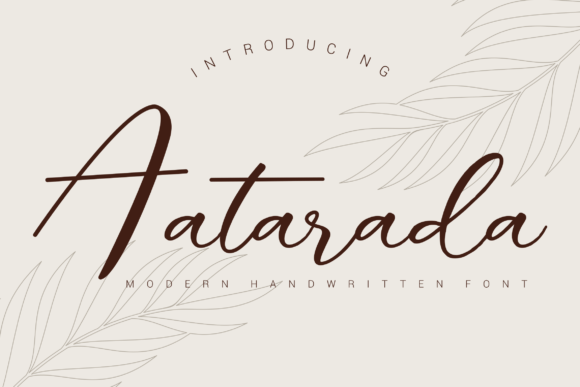
Aatarada Font: Elevate Your Designs with a Flowing and Authentic Script Font
In the world of typography, a font can make or break a design. For designers and crafters looking for a unique and authentic script font to elevate their projects, Aatarada Font is an excellent choice. Aatarada is a beautifully crafted font that exudes elegance and sophistication, making it perfect for a wide range of applications, from branding and logos to t-shirt printing and esports.
What is Aatarada Font?
Aatarada Font is a flowing and authentic script font designed to add a touch of personality to any design project. Its unique and elegant lettering makes it stand out from other fonts, and its versatility ensures that it can be used in various contexts. Whether you’re working on a logo, t-shirt design, or esports project, Aatarada Font is sure to make a lasting impression.
Key Features of Aatarada Font
- Flowing and Authentic Design: Aatarada Font boasts a beautiful, flowing design that gives it an authentic and organic feel.
- Suitable for Various Projects: From logos and t-shirt printing to esports and more, Aatarada Font is versatile enough to be used in a wide range of applications.
- Elegant and Sophisticated: The font’s elegant and sophisticated design makes it perfect for projects that require a touch of refinement.
- Easy to Read: Despite its unique design, Aatarada Font is easy to read, making it suitable for body text and headlines.
Why Choose Aatarada Font?
With so many fonts available, why choose Aatarada Font? Here are a few compelling reasons:
- Unique Design: Aatarada Font’s unique design sets it apart from other fonts, ensuring that your projects stand out from the crowd.
- Versatility: The font’s versatility makes it suitable for a wide range of projects, from branding and advertising to packaging and more.
- High-Quality: The font is designed to high-quality standards, ensuring that it looks great in any context.
Aatarada Font in Design Projects
Aatarada Font can be used in a wide range of design projects, including:
- Logo Design: Aatarada Font is perfect for logo design, adding a touch of elegance and sophistication to your brand’s identity.
- T-Shirt Printing: The font’s unique design makes it ideal for t-shirt printing, adding a personal touch to your apparel.
- Esports: Aatarada Font is also suitable for esports projects, adding a touch of professionalism and sophistication to your team’s branding.
In conclusion, Aatarada Font is a beautiful and versatile script font that can elevate any design project. Its unique and authentic design makes it perfect for a wide range of applications, from branding and logos to t-shirt printing and esports. With its ease of use and high-quality design, Aatarada Font is an excellent choice for designers and crafters looking to add a touch of elegance and sophistication to their projects.